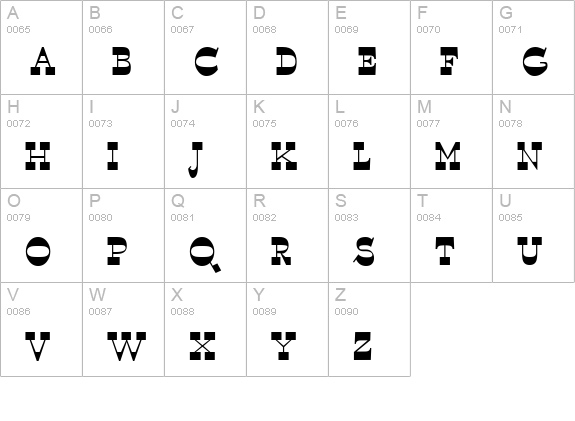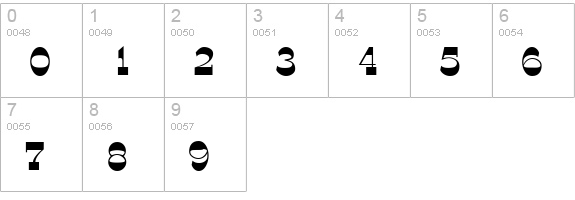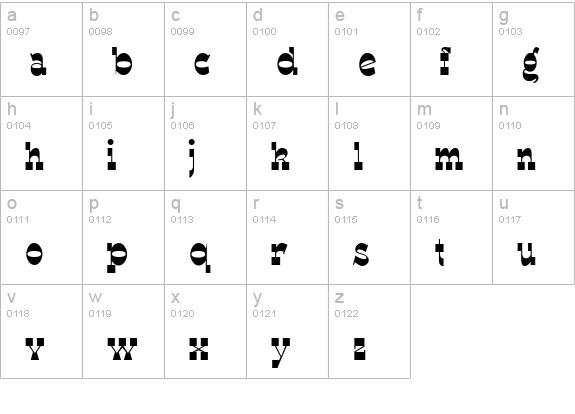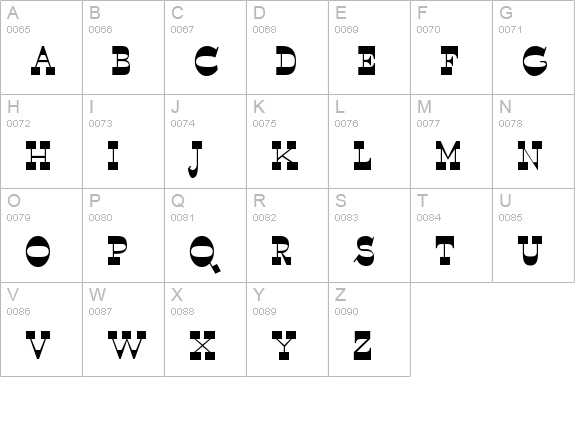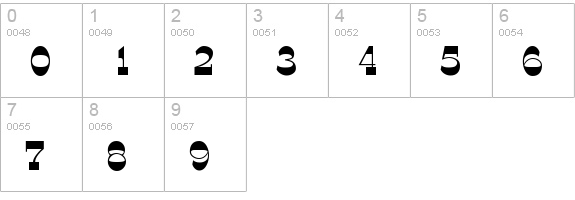
WyomingSpaghetti Bold Font Details
WyomingSpaghetti Bold is a strong, high-contrast variant in the WyomingSpaghetti typeface family \xE2\x80\x94 well suited to headlines, attention-grabbing titles, and strong calls-to-action.